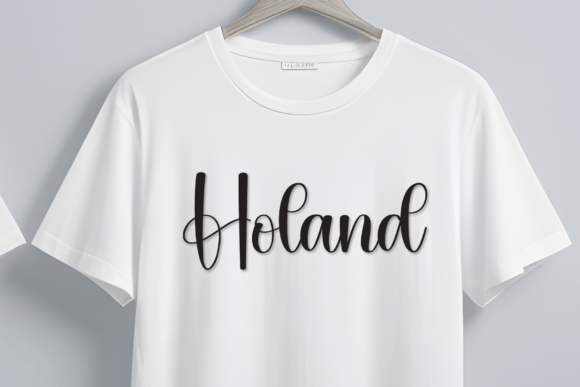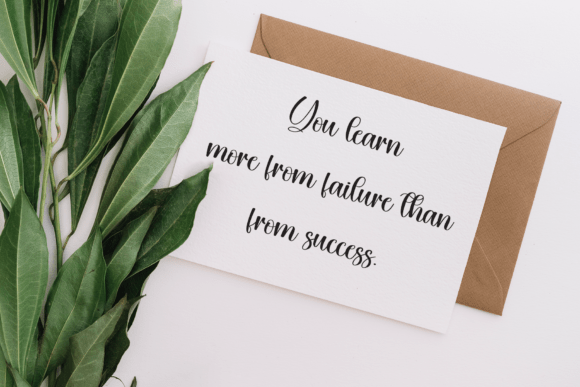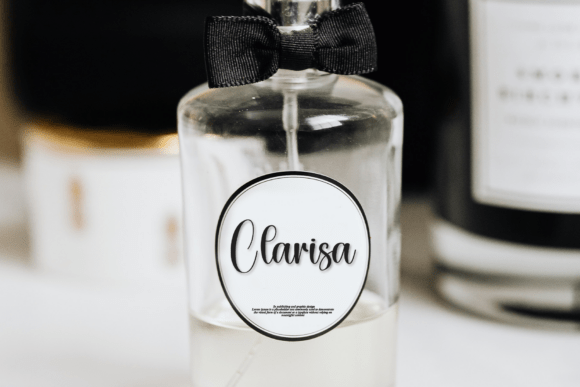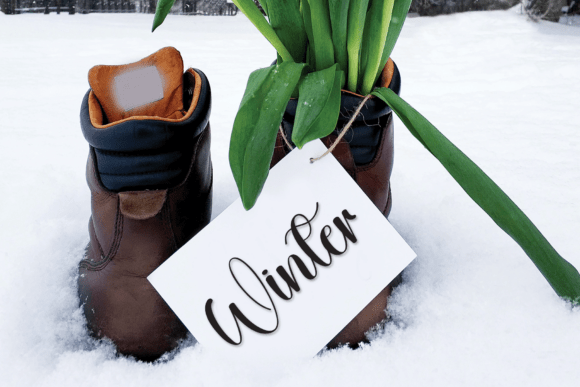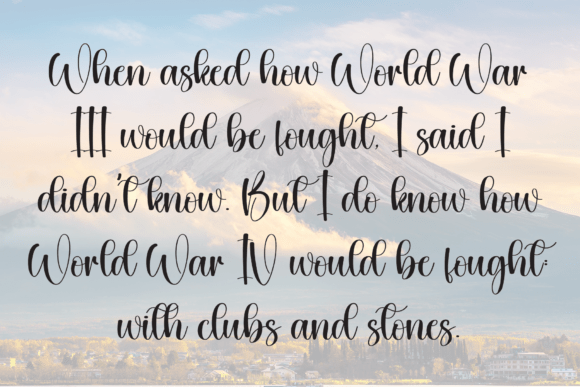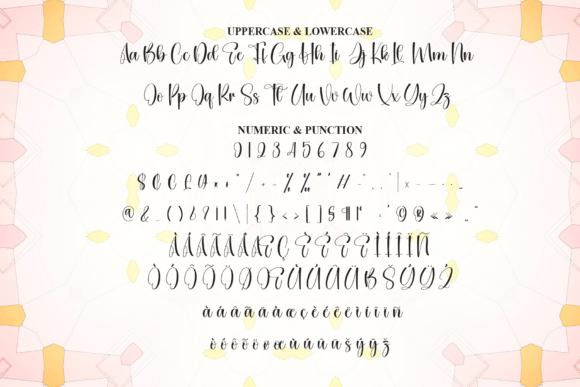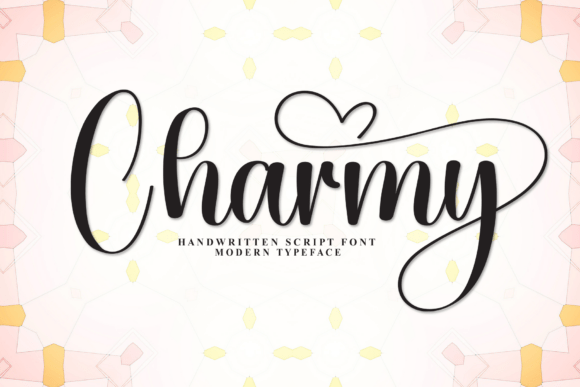
Introducing Charmy Font: Elevate Your Designs with Elegance and Sophistication
In the world of typography, a font can make or break a design. If you’re looking for a stylish script font that exudes elegance and contemporary charm, look no further than Charmy. This beautiful font features graceful strokes, fluid curves, and carefully crafted letterforms that capture the beauty of hand-drawn calligraphy with a modern twist. In this article, we’ll dive into the world of Charmy Font, exploring its unique features, uses, and benefits for designers and crafters.
The Charm of Charmy Font
Charmy Font is a masterclass in typographic design. Its elegant strokes and fluid curves give it a natural flow that’s perfect for a wide range of design applications. From logos and invitations to packaging and social media graphics, Charmy adds a refined and sophisticated touch to any design. Whether you’re a seasoned designer or a crafty DIY enthusiast, this font is sure to impress.
Key Features of Charmy Font
• Elegant Strokes: Charmy Font features beautiful, flowing strokes that give it a hand-drawn feel.
• Fluid Curves: The font’s curves are smooth and natural, creating a sense of movement and flow.
• Carefully Crafted Letterforms: Each letterform has been carefully designed to ensure that the font is both legible and visually appealing.
• Modern Twist: Charmy Font takes traditional calligraphy and gives it a modern update, making it perfect for contemporary designs.
Uses for Charmy Font
Charmy Font is incredibly versatile, making it suitable for a wide range of design applications. Here are just a few ideas to get you started:
• Logos: Create a professional and elegant logo for your business or brand.
• Invitations: Design beautiful wedding invitations, birthday invitations, or other special occasion invites.
• Packaging: Add a touch of sophistication to your product packaging with Charmy Font.
• Social Media Graphics: Create eye-catching social media graphics, such as quote graphics or promotional images.
Benefits of Using Charmy Font
So why choose Charmy Font for your next design project? Here are just a few benefits:
• Instant Elegance: Charmy Font adds a touch of elegance and sophistication to any design.
• Versatility: The font is suitable for a wide range of design applications, from logos to social media graphics.
• Easy to Read: Despite its elegant appearance, Charmy Font is easy to read, making it perfect for body text or headlines.
• Unique and Memorable: Charmy Font is sure to make your design stand out from the crowd.
Tips for Using Charmy Font
To get the most out of Charmy Font, here are a few tips:
• Use it Sparingly: While Charmy Font is beautiful, it can be overwhelming if used excessively. Use it sparingly to create a sense of elegance and sophistication.
• Experiment with Colors: Try pairing Charmy Font with different colors to create a unique and eye-catching design.
• Mix and Match: Combine Charmy Font with other fonts to create a visually appealing contrast.
In conclusion, Charmy Font is a stylish script font that exudes elegance and contemporary charm. With its graceful strokes, fluid curves, and carefully crafted letterforms, it’s perfect for a wide range of design applications. Whether you’re a designer or a crafter, Charmy Font is sure to elevate your designs and add a refined and sophisticated touch. So why not give it a try and see the difference it can make?